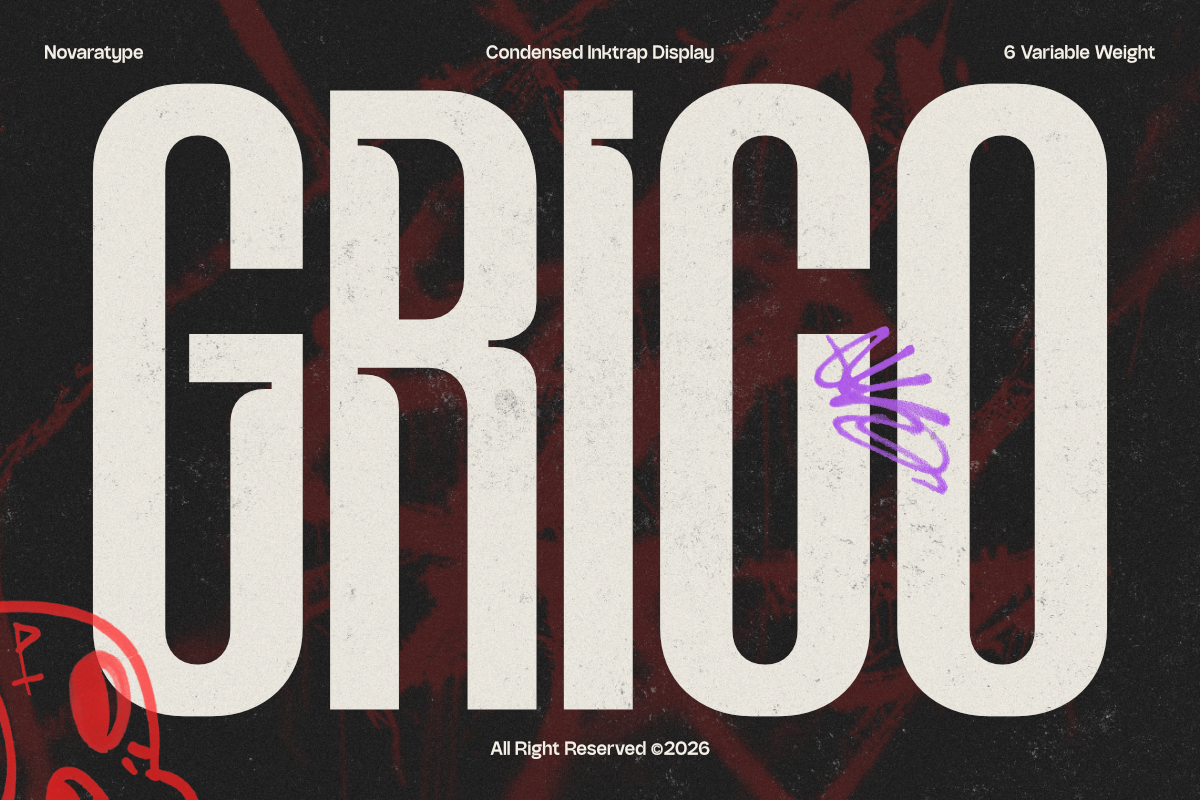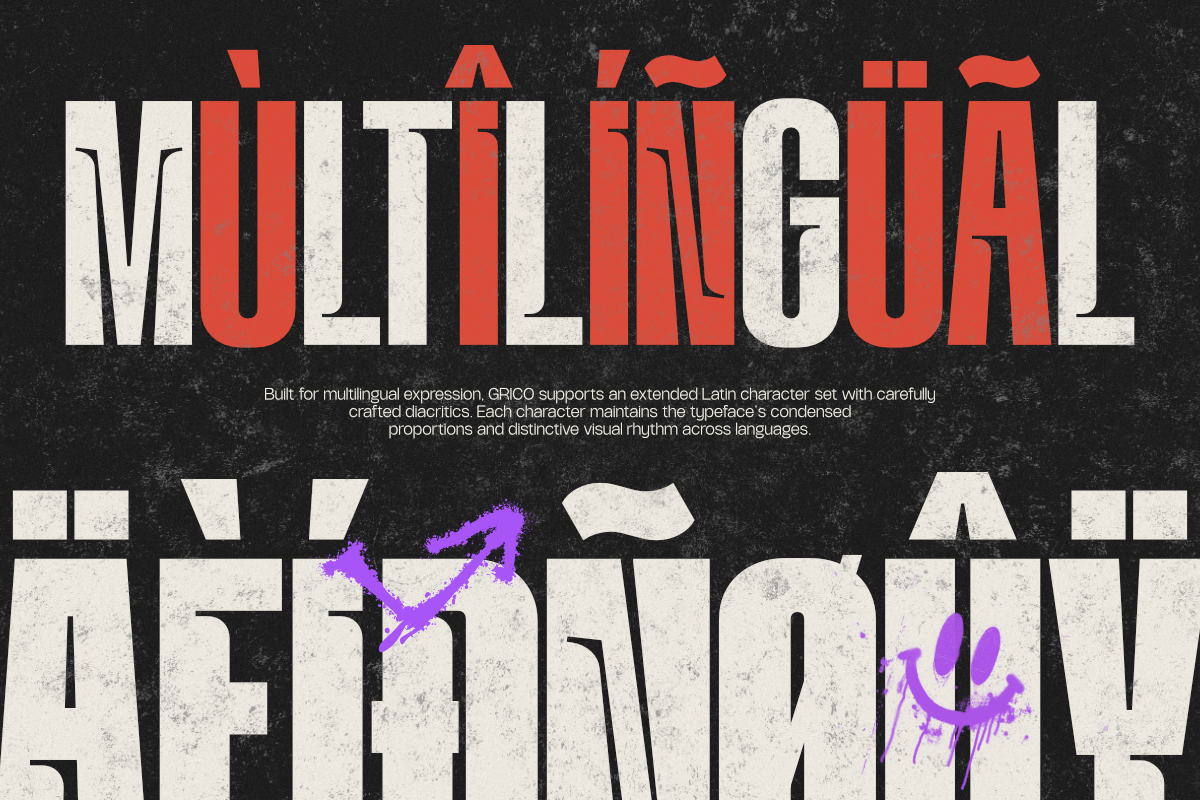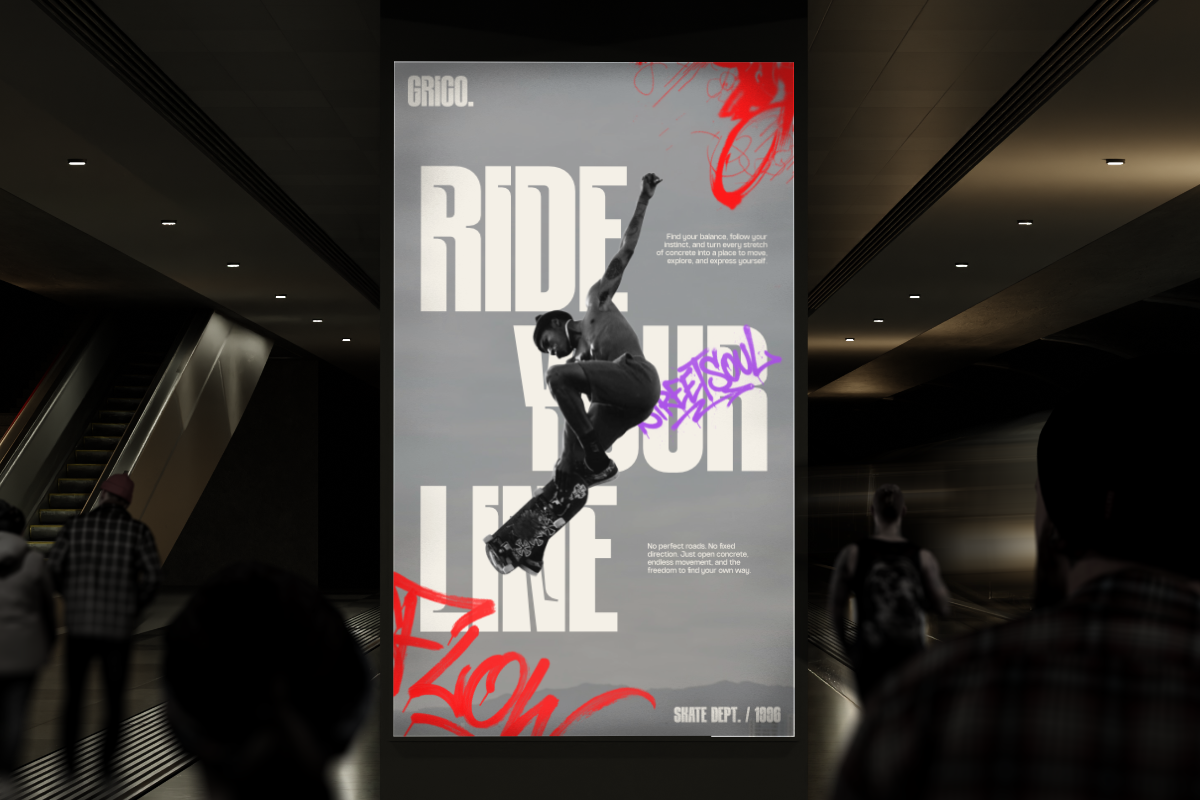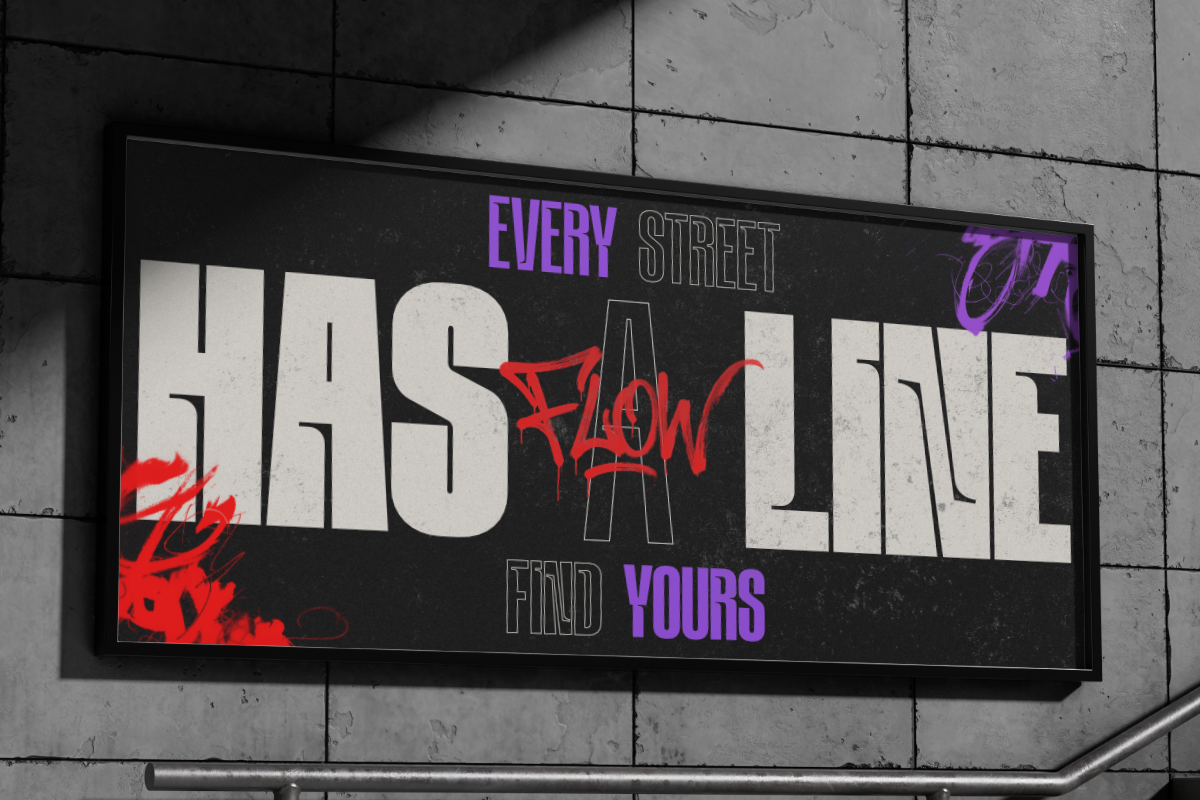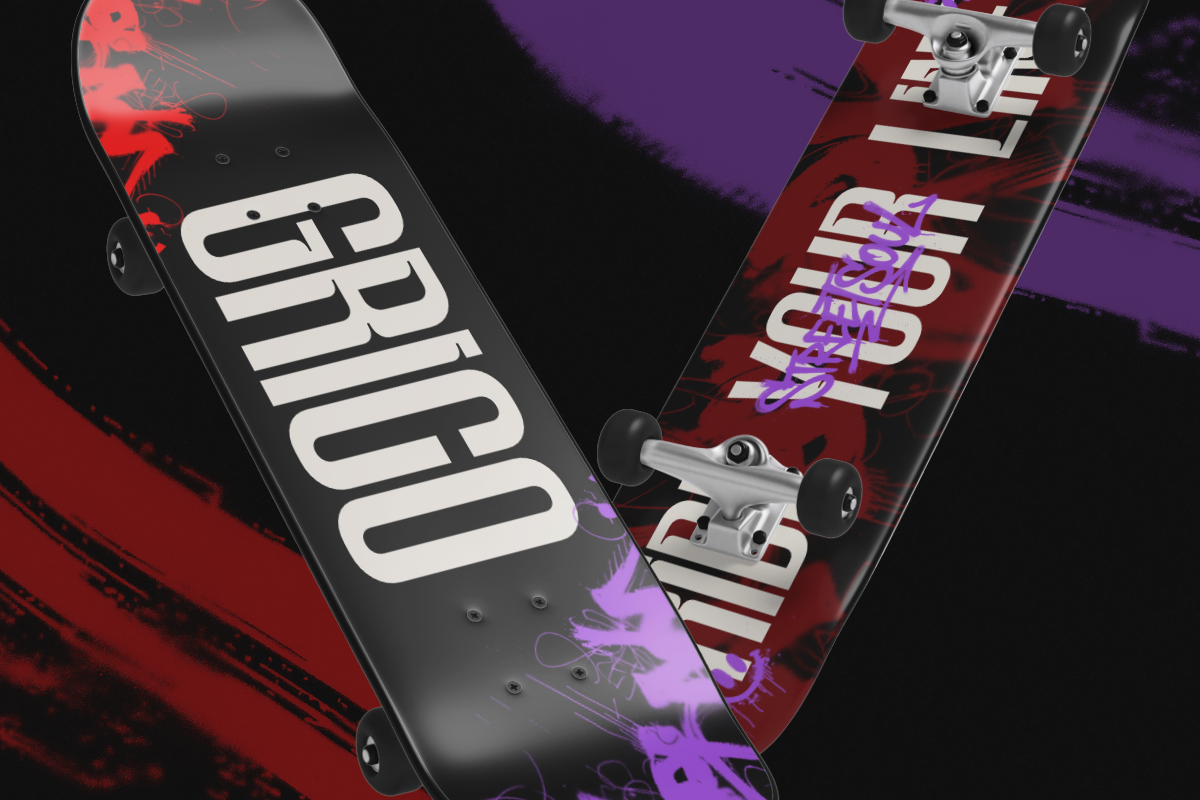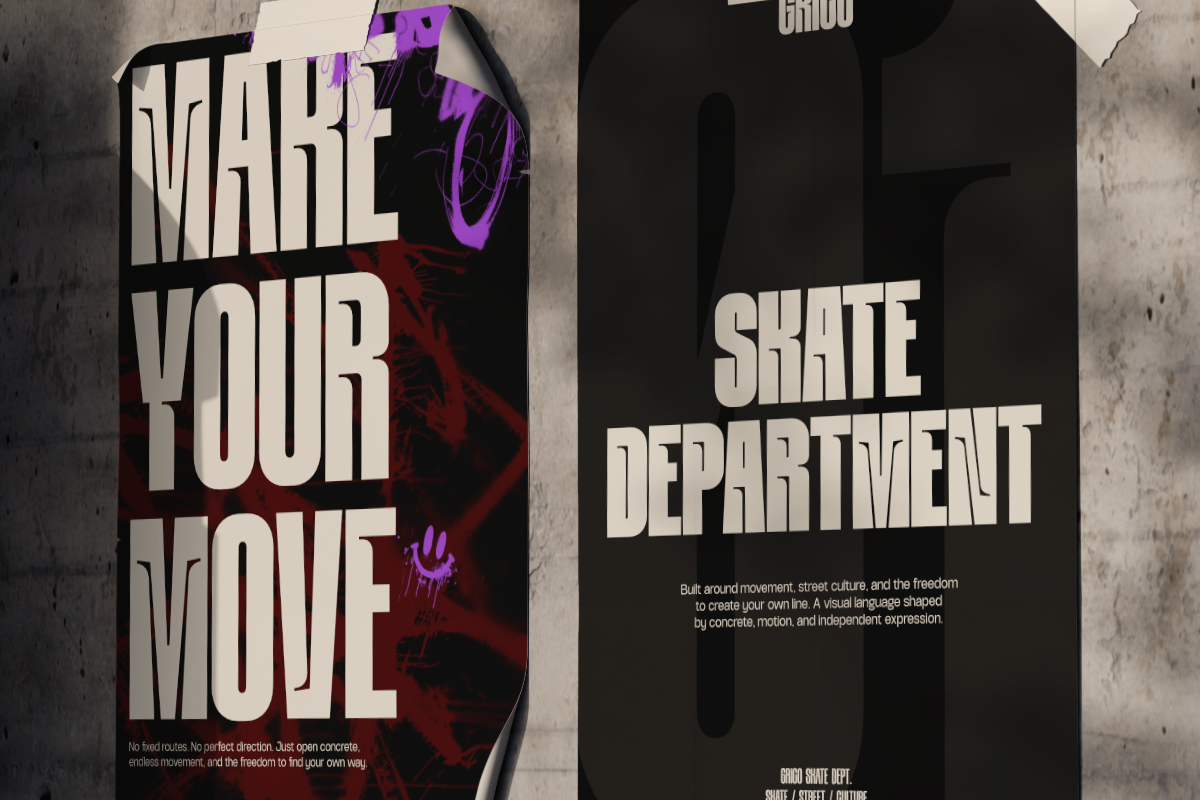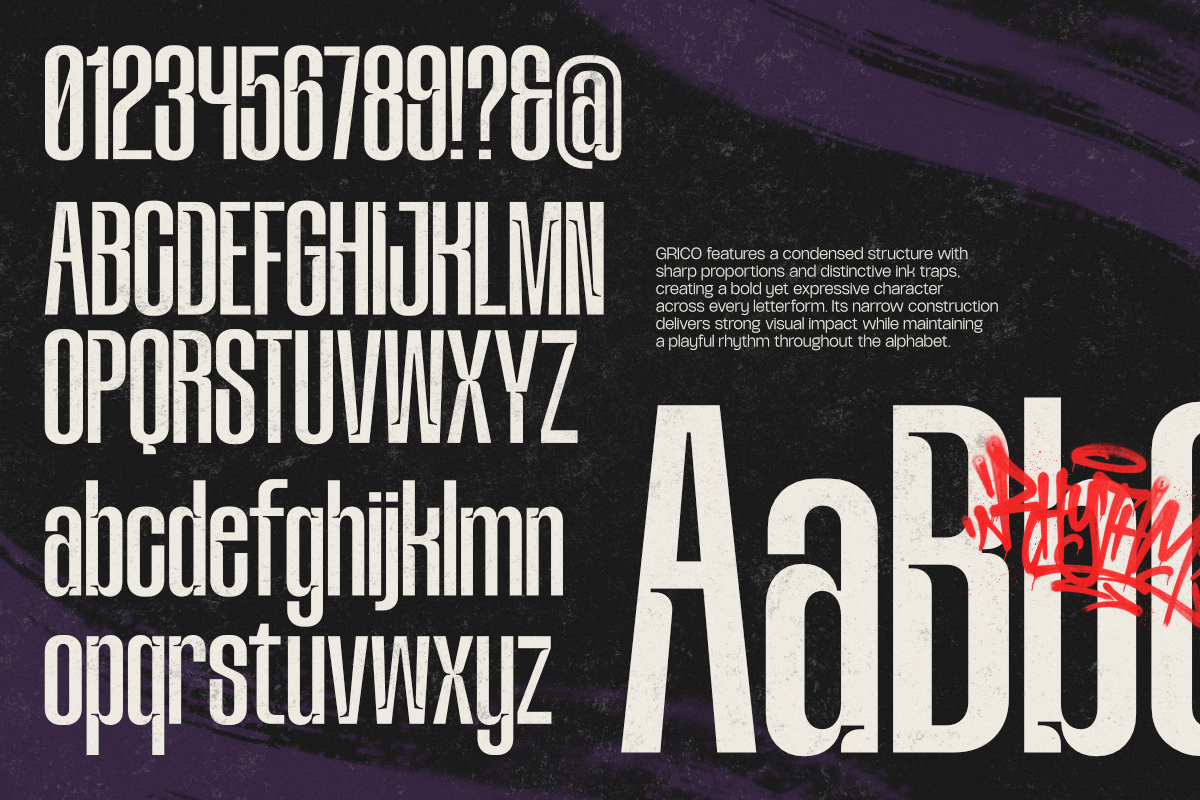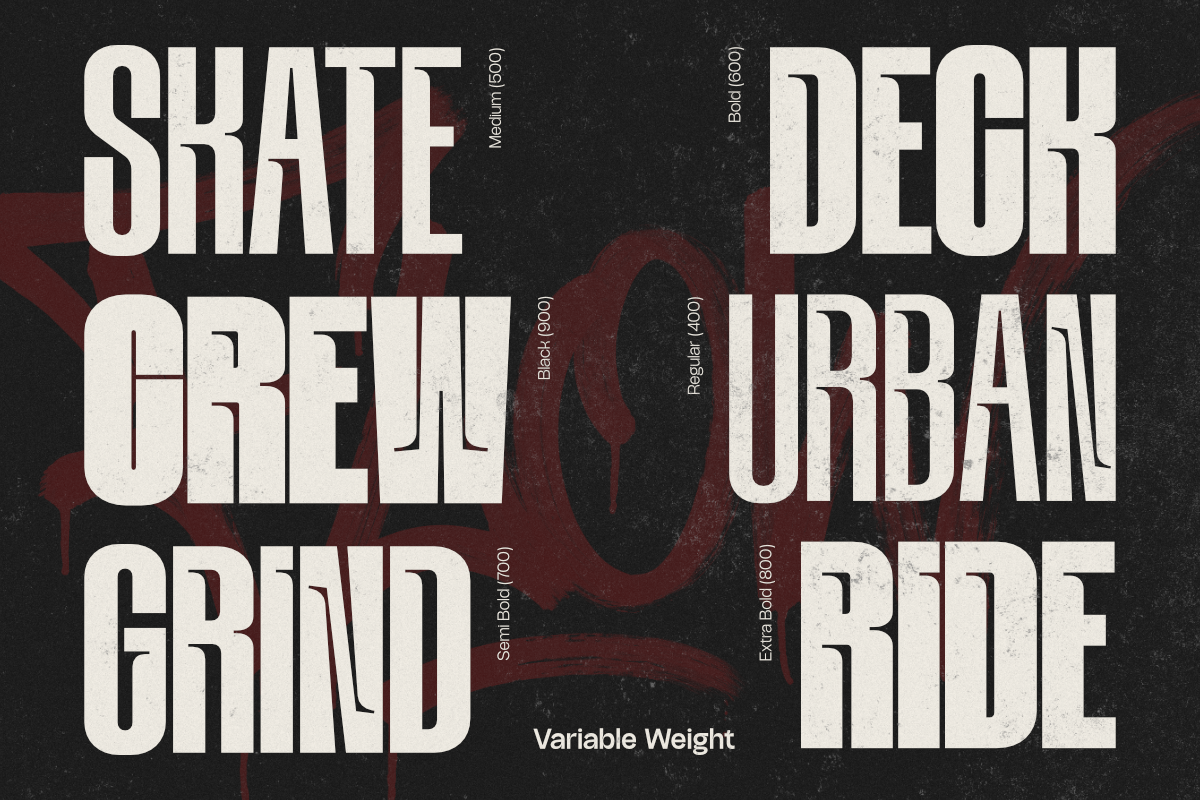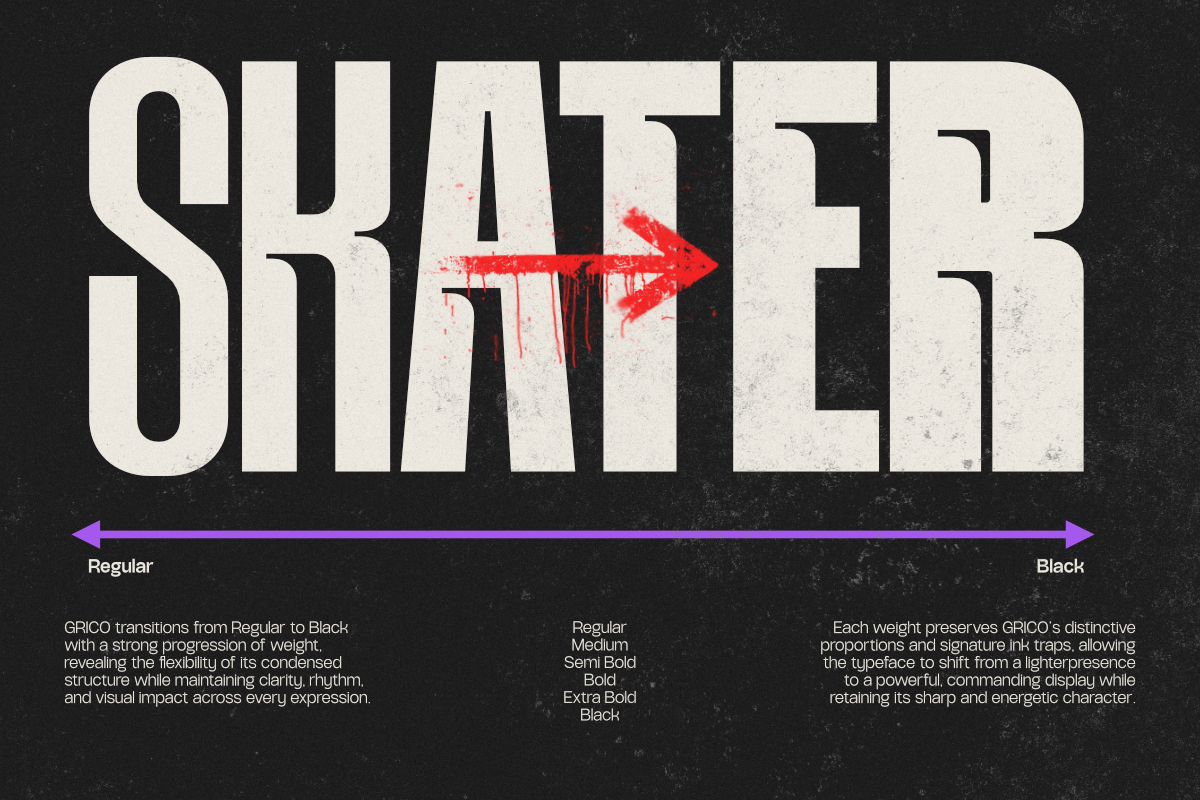
NV GRICO Condensed Sans Serif Font Family is a bold and distinctive type system built around narrow proportions, sharp details, and strong vertical character. Developed by NovaraType, NV GRICO is designed for headlines, posters, branding, editorial layouts, streetwear graphics, and contemporary display design.
With 6 variable weights, NV GRICO offers flexible control over typographic weight while maintaining its condensed structure and distinctive personality. Its narrow proportions allow designers to create impactful compositions while making efficient use of space.
NV GRICO is carefully crafted to balance strong visual presence with clean and consistent letterforms. From bold campaign headlines and fashion graphics to packaging, editorial design, and visual identities, its versatile weight range allows the typeface to adapt effortlessly across different creative directions.
Whether used for large-scale display typography or compact compositions, NV GRICO delivers a confident, modern, and expressive typographic voice designed to make an impression.